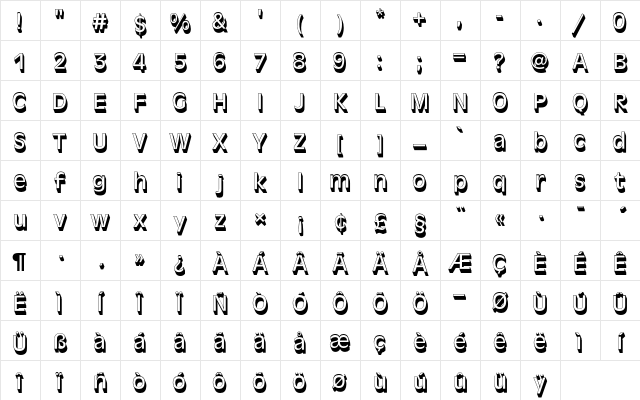
Antique Olive T Sh1 Regular
Design Context for Antique Olive T Sh1
Antique Olive T Sh1 wears its vintage influences proudly, with letterforms that recall mid-century signage, classic packaging, and nostalgia-driven design.
Font Pairing: Combine Antique Olive T Sh1 with a simple slab or neutral sans - period-accurate companions reinforce the vintage feel without competing for attention.
Pro Tip: Lean into Antique Olive T Sh1's period character by pairing it with aged paper textures, muted colour palettes, and vintage illustration styles.